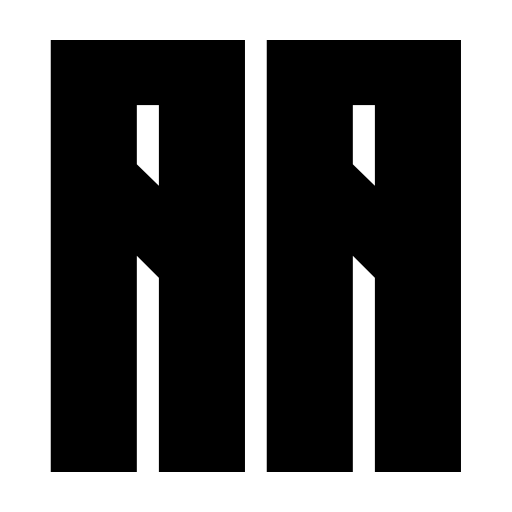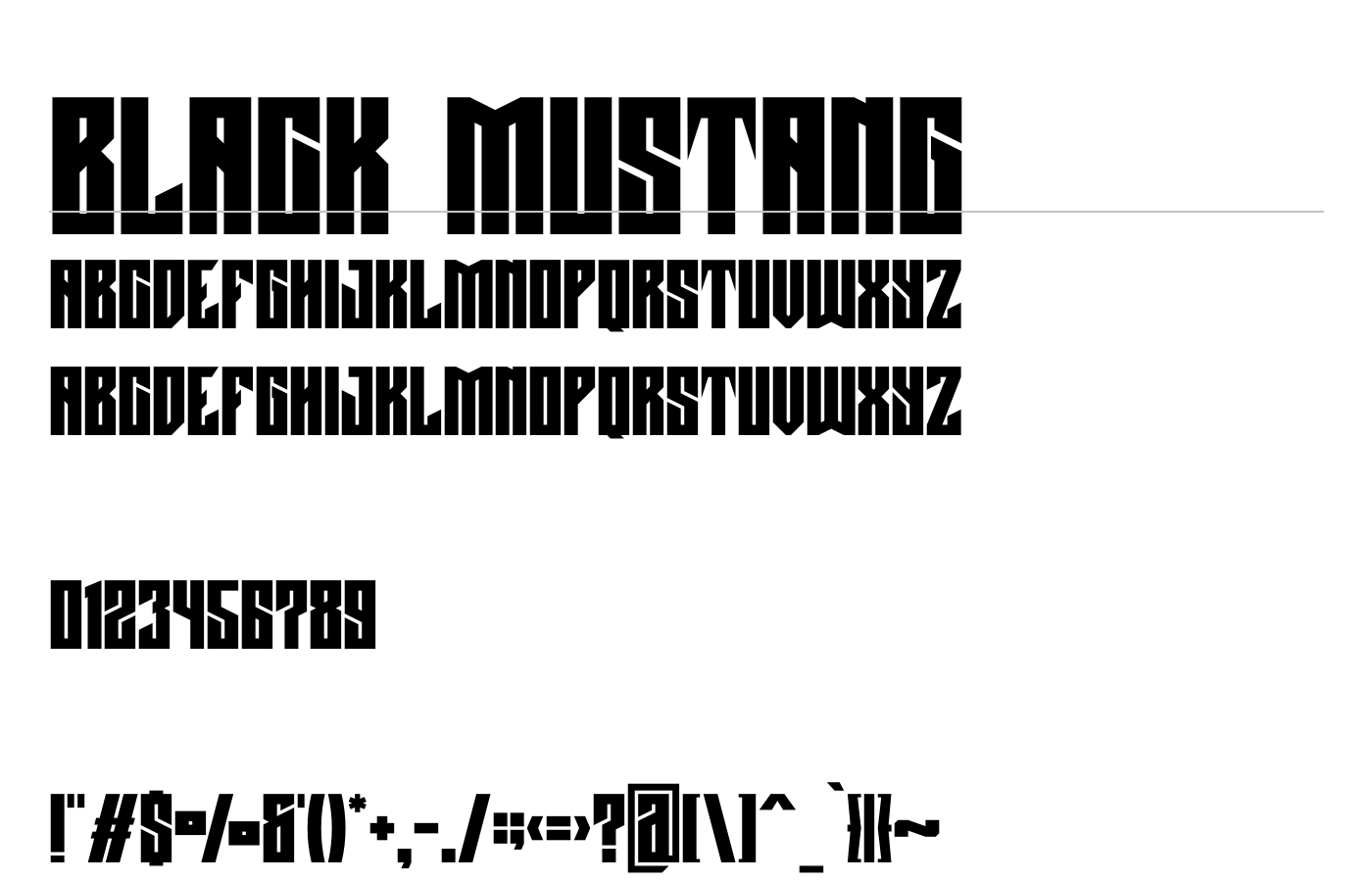
Black Mustang is a bold, condensed sans serif display font with sharp, angular edges and a solid, blocky structure that gives it a striking and aggressive personality. Its high-impact style and geometric forms make it perfect for eye-catching headlines, logos, and branding where a strong, modern, and edgy look is desired. This font works especially well in designs aiming to communicate power, confidence, and urban energy.
Black Mustang Font
About Black Mustang Font
| Font family | Black Mustang Font |
| Designer | Ari juanda |